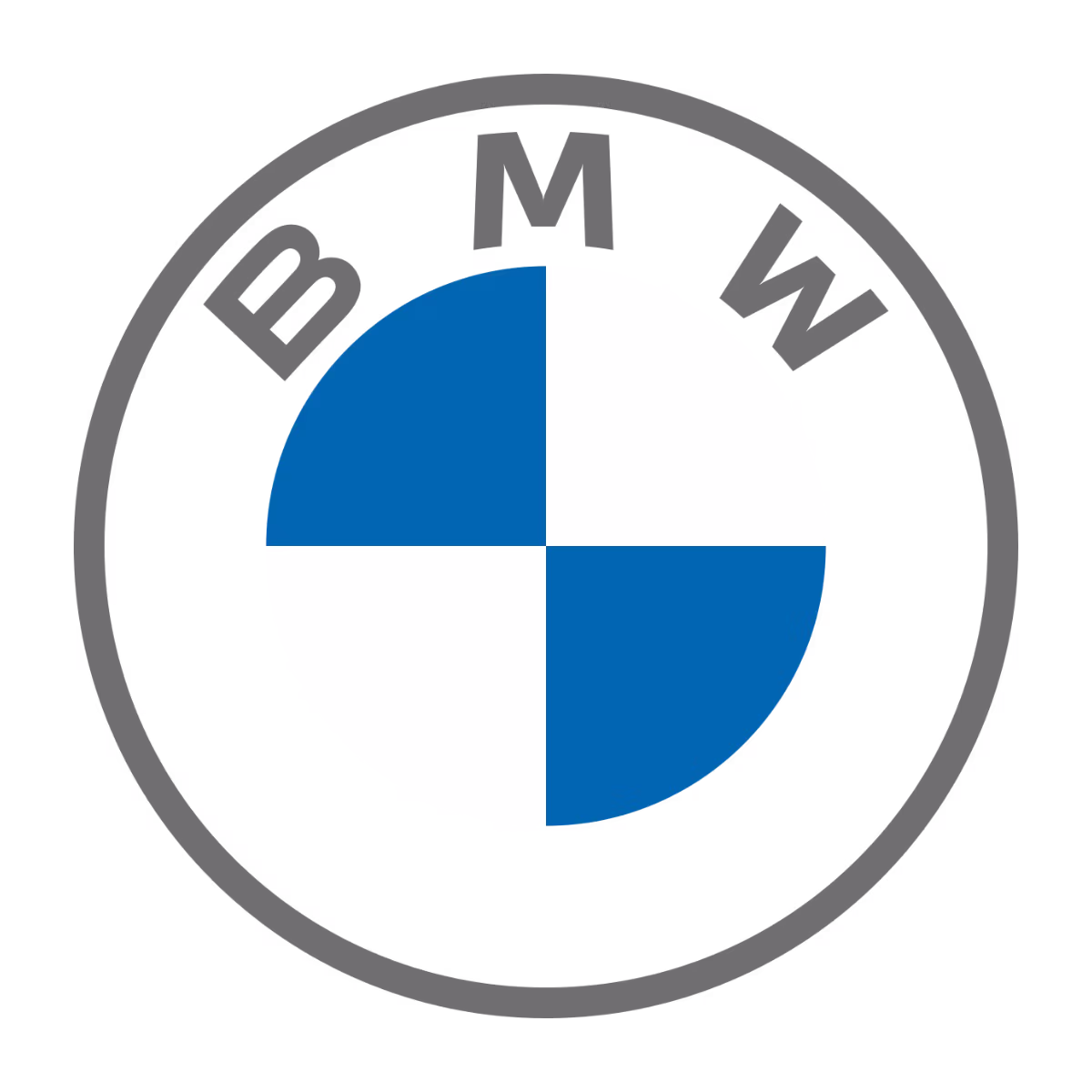
BMW Logo Font
Helvetica®
Bayerische Motoren Werke AG, commonly known as BMW, is a German multinational manufacturer of luxury vehicles and motorcycles. Founded in 1916 as an aircraft engine producer, BMW later became one of the world’s leading premium automotive brands. The BMW logo font, Helvetica®, is a neo grotesque sans serif typeface known for its clean lines, balanced proportions, and strong legibility. The Helvetica logo font reinforces BMW’s precision, engineering quality, and modern identity.